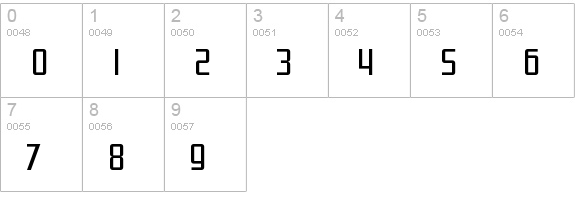
SF Proverbial Gothic Condensed Font Details
SF Proverbial Gothic Condensed is a distinctive, condensed-width variant in the SF typeface family \xE2\x80\x94 well suited to design and typography projects.
Introducing SF Proverbial Gothic Condensed font - a captivating and versatile typeface that effortlessly blends elegance with a touch of edginess. This font is the epitome of modernity, with its condensed form and sleek lines that command attention wherever it is used. SF Proverbial Gothic Condensed font is a perfect choice for those seeking a bold and impactful design. Its condensed nature allows for maximum impact in minimal space, making it ideal for headlines, posters, logos, and any other design project that requires a strong and commanding presence. What sets SF Proverbial Gothic Condensed font apart is its unique ability to seamlessly merge tradition with contemporary design. It exudes a sense of timelessness while still embracing the modern aesthetic. Its refined and carefully crafted letterforms ensure readability without compromising on style. But that's not all - SF Proverbial Gothic Condensed font is not just visually stunning, it is also available for free! Yes, you read that right. This incredible font can be freely downloaded at FontsMarket.com, allowing designers, creatives, and typography enthusiasts to access its captivating charm without any cost. So, whether you're working on a cutting-edge branding project, creating captivating social media graphics, or designing a striking poster, SF Proverbial Gothic Condensed font is the perfect choice. Its bold, condensed form and timeless appeal will effortlessly elevate your designs to new heights. And with the added bonus of being freely available to download at FontsMarket.com, this is an opportunity you don't want to miss. Embrace the power of SF Proverbial Gothic Condensed font and let your creativity soar.